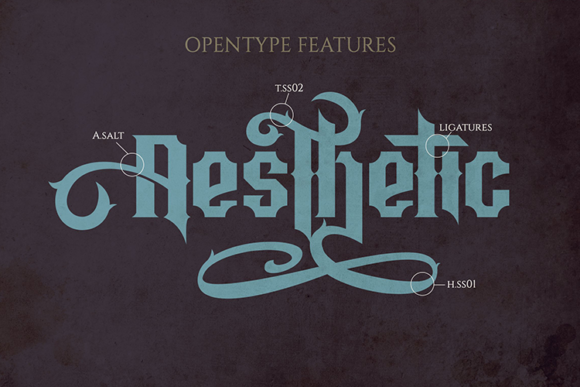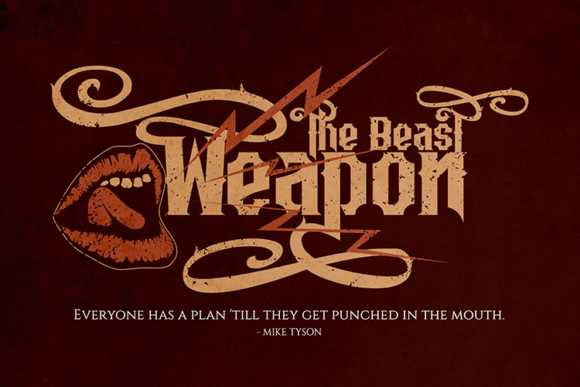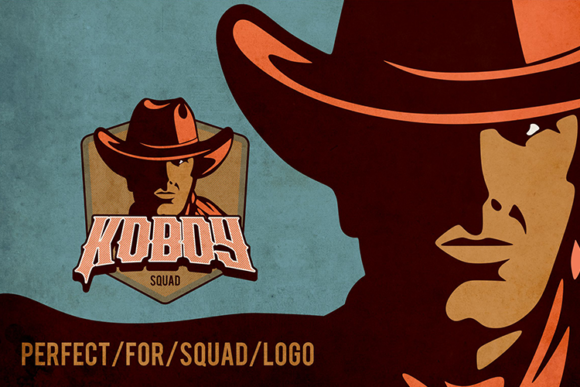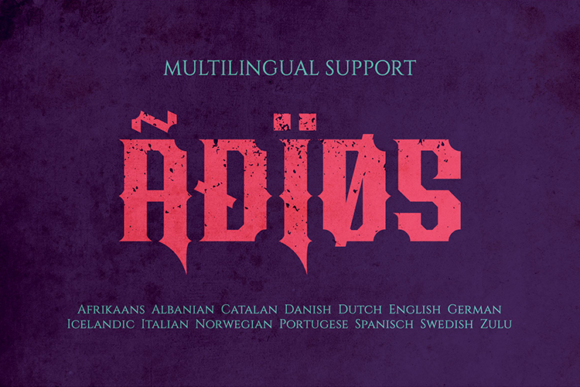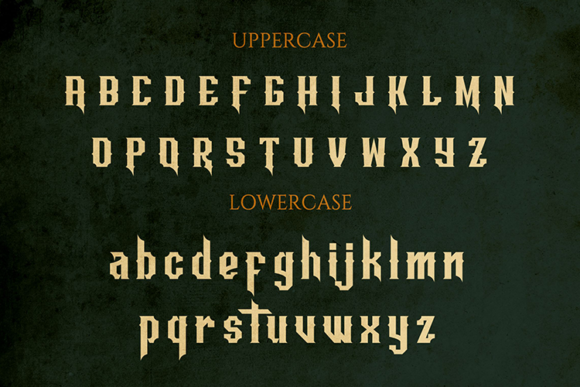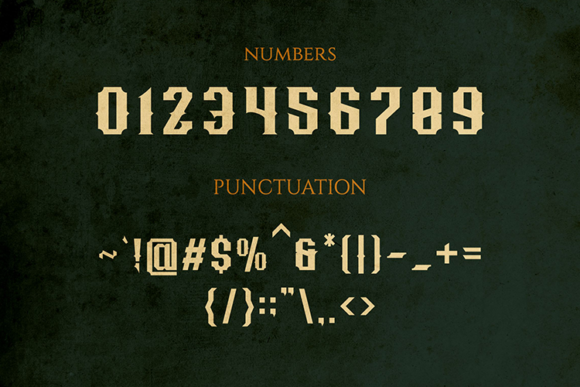
The Birth of Aesthetic Typography
Have you ever stared at a blank page, desperately seeking the perfect font to bring your design to life? That’s exactly what happened to [font designer’s name] when creating the Aesthetic Font. As a designer, you know the struggle of finding the perfect balance between vintage charm and modern sophistication. The Aesthetic Font is a handmade display typeface that masterfully combines these two elements, resulting in a truly unique and captivating aesthetic.
This beautiful font is not just a pretty face; it’s a valuable tool for designers looking to add a touch of elegance and whimsy to their projects. With its vintage style and modern typography, the Aesthetic Font is perfect for anyone looking to create a distinctive and memorable brand identity.
Aesthetic Font Key Features
- Font Family: Aesthetic Font offers a range of font styles, including serif, sans-serif, script, and display fonts.
- Character Set: Supports a comprehensive character set, including Latin, Cyrillic, Greek, and various symbol sets, ensuring broad language support.
- Unique Characteristics: Features a unique blend of elegance and sophistication, with subtle flourishes and refined lines that add a touch of sophistication to any design.
Aesthetic Font Review
I’ve had the chance to play around with the Aesthetic Font, and I must say it’s a mixed bag. On the one hand, it’s great for catchy headlines and eye-catching titles ✨. The font is modern, sleek, and does a great job of grabbing attention. It’s also relatively easy to read, even at smaller font sizes.
However, there are a few limitations that hold it back ⚠️. Firstly, it can be a bit too bold at times, making it difficult to read for extended periods. Additionally, it’s not ideal for body text, as it can be tiring to look at. I’ve also noticed that it doesn’t support as many languages as some other fonts, which can be a problem for international projects.
Overall, I’d say the Aesthetic Font is great for making a statement, but it’s not a font I’d use for everyday text. It’s perfect for social media posts, advertisements, and other marketing materials where you want to stand out ✨. But if you need a font for a long-form article or a book, you might want to look elsewhere.
- Great for headlines and titles
- Modern and sleek design
- Relatively easy to read
- Not ideal for body text
- Limited language support
Aesthetic Font is ideal for creative projects like social media graphics, blog posts, and advertising materials. It’s also perfect for personal projects like wedding invitations, birthday cards, and photo albums.
Yes, Aesthetic Font is designed to be highly customizable. You can adjust the font’s size, color, and spacing to fit your specific design needs. Additionally, Aesthetic Font supports a wide range of OpenType features, including ligatures, swashes, and contextual alternates. You can use font editing software, such as FontLab or Adobe Illustrator, to customize the font further.